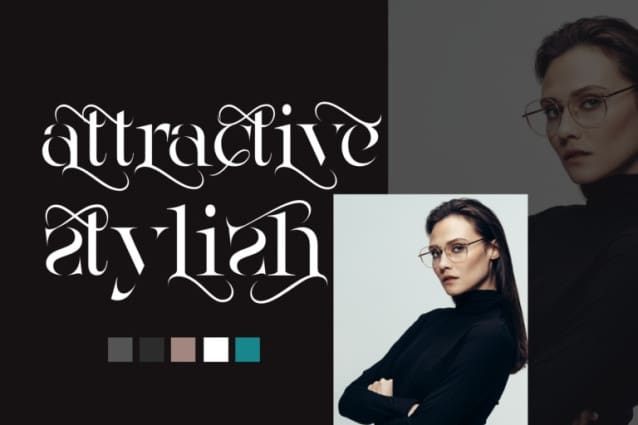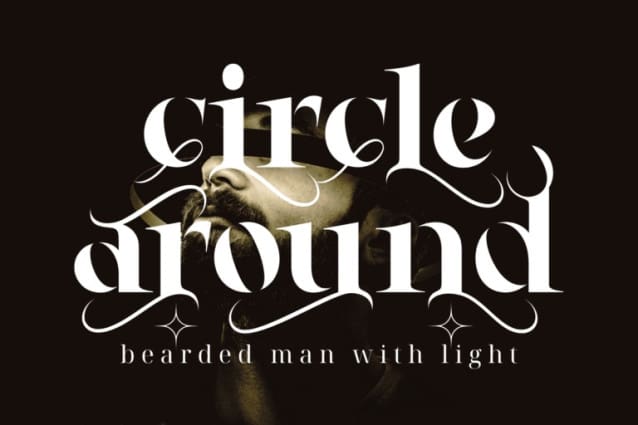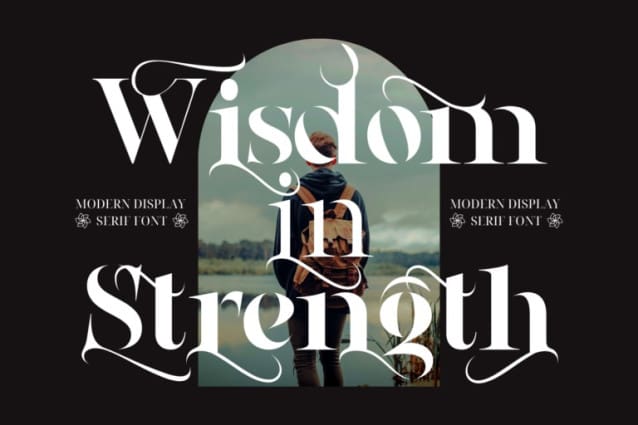
Wisdom In Strength Font
Wisdom in Strength Font, showcasing its elegant and sophisticated style, exuding a sense of timeless elegance. The background reveals a subtle pattern, which enhances the font’s overall sophistication and refinement. Modern serif font with elegant style this is perfect for branding, logos, invitation, magazines, product packaging and more.
Wisdom in Strength was built with OpenType features and includes 100 ligatures, alternate, numbers, punctuation, and it also supports other languages.